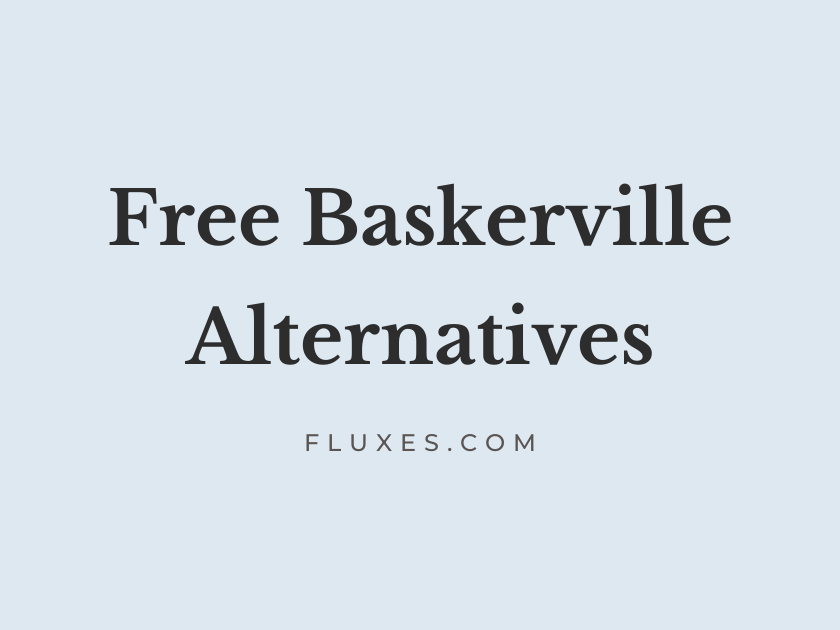
14 Best Free Fonts Alternatives to Baskerville
Baskerville has been a mainstay of book design and refined editorial layouts since the 1750s, prized for its crisp transitional structure, generous x-height, and the way its subtle contrast makes long passages feel unhurried and legible. Not every project has access to a licensed version, and thankfully the free fonts on Google Fonts offer plenty of transitional and old-style serifs that capture that same printed, literary quality without the cost. Whether you need a Baskerville alternative for a novel, a magazine, a resume, or a website that wants to feel considered rather than trendy, there are strong candidates built specifically for that job.
1. Libre Baskerville
Reading, printed, and set with quiet authority
Built explicitly as a web-optimized reinterpretation of Baskerville’s 1941 American Type Founders cut, this is the most direct substitute on the list. The x-height has been enlarged and the contrast eased slightly so paragraphs hold up on screens as well as they do on paper, which makes it a natural pick for blogs, ebooks, and body copy anywhere.
2. Libre Caslon Text
Set your chapters in dependable, book-ready type
Closer in spirit to Caslon than Baskerville, but it shares that same sturdy, no-nonsense readability that made both faces standard in centuries of printed books. If you want something with a bit more bite in its serifs and a slightly more contemporary structure, this earns its place on a shortlist of transitional workhorses.
3. EB Garamond
Timeless letters for a well-mannered page
Where Baskerville sharpened the old-style tradition, Garamond preceded it, and this digital revival brings that earlier warmth to long-form text. It suits scholarly documents, novels, and any layout aiming for a literary, slightly antique feel rather than crisp modern precision.
4. Cormorant Garamond
Elegant headlines for invitations and editorials
This one leans decorative and high-contrast, more suited to display sizes and pull quotes than dense paragraphs. Pair it with a plainer text face for body copy and it delivers the kind of refined, editorial elegance that a Baskerville-inspired masthead or wedding suite calls for.
5. Crimson Pro
Long chapters that stay comfortable to read
Modeled loosely on old-style book faces, Crimson Pro reads calm and settled at paragraph sizes, with even color and unfussy serifs. It was designed with an eye toward the print tradition Baskerville belongs to, making it a sensible substitute for dissertations, ebooks, and other text-heavy documents.
6. Spectral
Designed for screens, rooted in printed tradition
Spectral was commissioned specifically to bring transitional-style serifs to comfortable on-screen reading, so it carries some of Baskerville’s structural DNA while being tuned for lower-resolution displays. It comes in a wide range of weights, which gives designers more flexibility for headings, captions, and body text within a single family than Baskerville itself typically offers.
7. Lora
A modern serif with old-world curves
Lora’s brushed, slightly calligraphic curves give it a contemporary warmth while still nodding to classical serif proportions. It works well on editorial websites and blogs looking for something friendlier and rounder than a strict transitional face.
8. Vollkorn
Sturdy paragraphs built for serious reading
Originally drawn for German book typography, Vollkorn has a grounded, no-frills sturdiness that suits long-form articles and reports. It is not the most stylish name on this list, but it is one of the most dependable for pages where legibility matters more than flair.
9. Alegreya
Literary type with a calligraphic, humanist feel
Alegreya was designed for literature, and it shows in its slightly irregular, humanist rhythm that feels handwritten rather than mechanical. It pairs nicely with a plainer sans for interface elements, leaving the serif to carry the storytelling.
10. PT Serif
Versatile serif type for print and web alike
A workhorse transitional serif with excellent Cyrillic and Latin coverage, PT Serif reads cleanly at small sizes without losing character. It is a practical choice when a project needs a Baskerville-like tone but also broad multilingual support.
11. Domine
Bold, confident headings for editorial layouts
Domine was built with book headings in mind, so its bolder weights carry real presence without tipping into a display face. Reserve it for titles and subheads and let a lighter serif handle the paragraphs beneath it.
12. Source Serif 4
Clean, transitional type tuned for interfaces
Adobe’s contribution to this space is understated and precise, with restrained contrast that keeps it legible at small screen sizes. It sits comfortably alongside Source Sans in a design system, which makes it a practical choice for products as much as publications.
13. Noto Serif
Wide language support for global publishing
Part of Google’s Noto superfamily, this serif was engineered to cover an enormous range of scripts while keeping a consistent transitional structure. It is not the most characterful option here, but it is one of the safest for multilingual editorial projects that still want a printed, book-like tone.
Any of these free Google Fonts can stand in for Baskerville depending on whether the project calls for restrained body text, an elegant editorial headline, or broad language coverage. Download a few, set some real copy, and see which one carries your page with the same measured confidence Baskerville brought to the printed word.